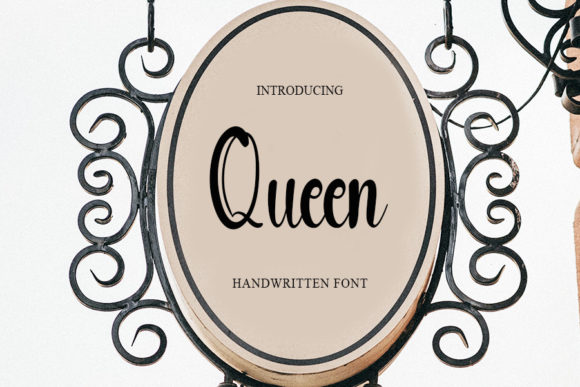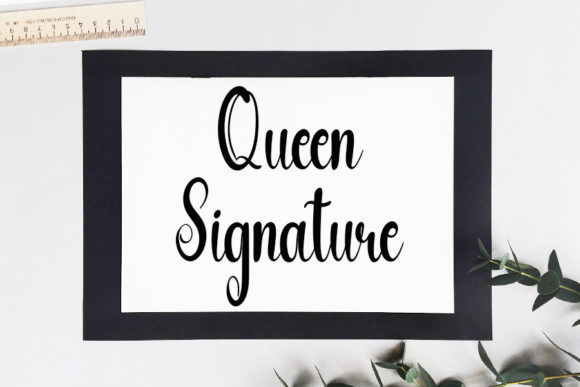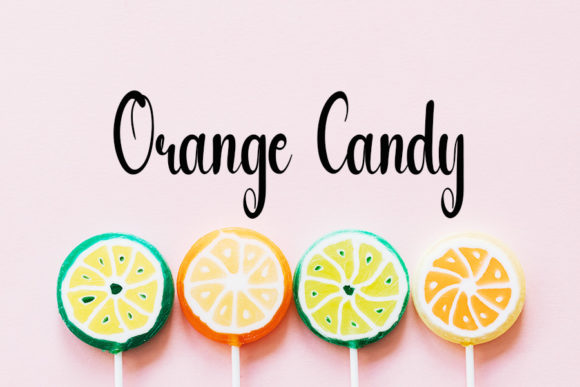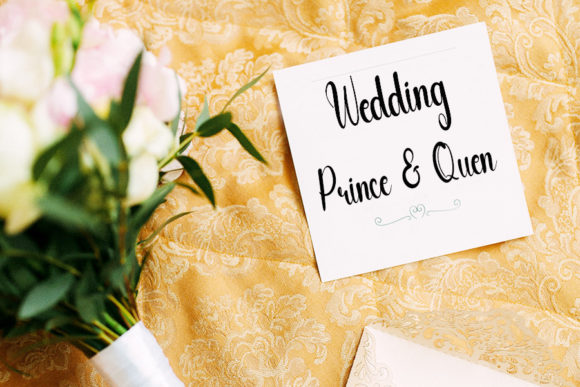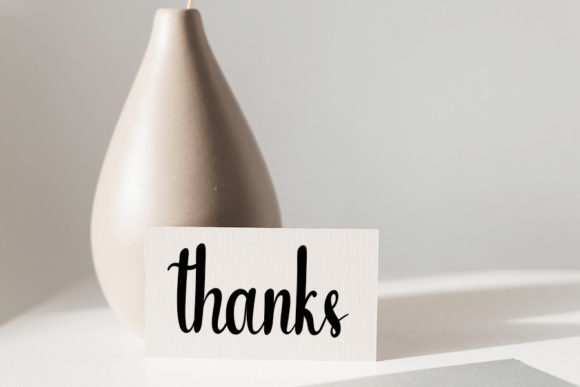
About Queen Font
Queen is a casual handwritten font, carefully designed to become a true favorite. It maintains its classy calligraphic influences while feeling contemporary and fresh.